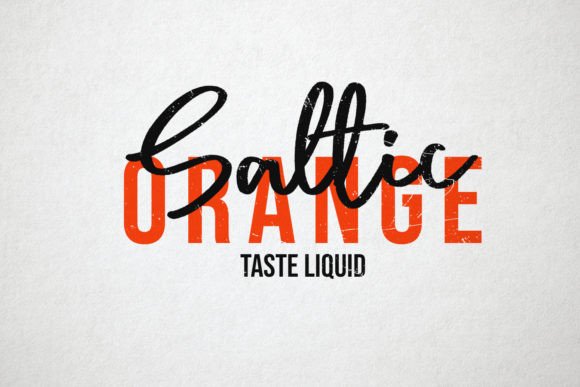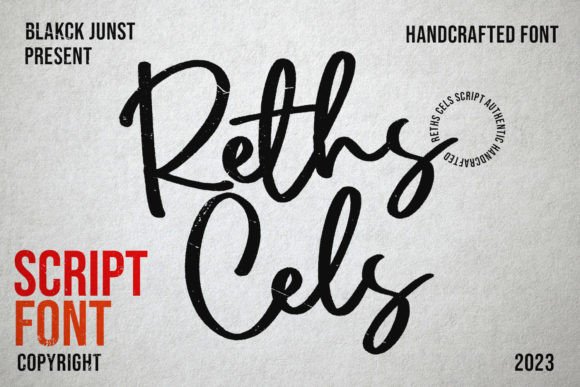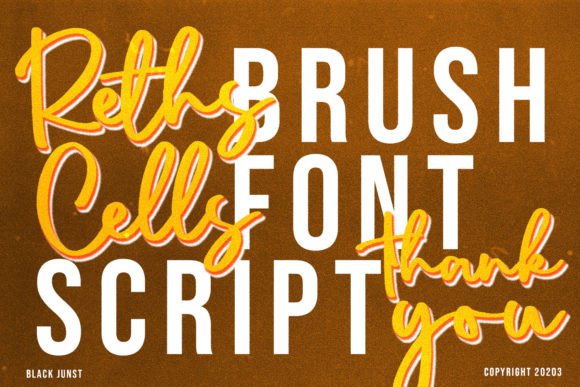
Introduction to Reths Cels Font
As designers, we’ve all been there – staring at a blank canvas, trying to bring a creative project to life. The moment of inspiration strikes, and suddenly, the perfect font appears in our minds’ eye. For many, it’s the Reths Cels Font that stands out as the perfect addition to any design. With its elegant script style, this high-quality font is a game-changer for any design project that needs a handwritten touch.
Whether you’re working on a wedding invitation, a thank you card, or a logo, Reths Cels Font is the perfect design resource to elevate your work. Its free download feature makes it accessible to designers of all levels, and its transparent background allows for seamless integration with any design. But what really sets Reths Cels Font apart is its ability to add a touch of sophistication and elegance to any creative project.
Key Features of Reths Cels Font
- High-quality design resource for creative projects
- Designed with a unique aesthetic, perfect for adding a touch of elegance to any design
- Includes a comprehensive set of characters, including uppercase and lowercase letters, numbers, and punctuation
Honest Review: Reths Cels Font
I recently stumbled upon the Reths Cels Font, and I must say it’s been a game-changer for my creative projects. This high-quality font is a fantastic design resource that I’ve been using extensively in my recent work. The clean and elegant design makes it perfect for any project, and the transparent background feature allows for seamless integration with any background image or color.
Here are some of the things that work well for me: ✨
- Wide range of characters and glyphs, making it suitable for various languages and alphabets
- High-resolution design, ensuring that the font looks crisp and clear even at larger sizes
However, I do have some limitations to note: ⚠️
- The font may not be ideal for bold or dramatic text, as it can appear slightly too light
- Some users may find the font’s simplicity a bit too minimalist for their taste
Overall, I’m really impressed with the Reths Cels Font. Its versatility, high-quality design, and free download option make it an excellent addition to any designer’s toolkit. Whether you’re working on a logo, brochure, or website, this font is definitely worth considering.
Reths Cels Font is a high-quality design resource ideal for creative projects that require a unique touch. With a transparent background, this font can be easily integrated into various design platforms.
Common Use Cases for Reths Cels Font
Reths Cels Font is ideal for various design projects, including:
- Branding and logo design
- Print materials, such as business cards and brochures
- Digital designs, such as social media graphics and website headers
Alternatives to Reths Cels Font
Is the Reths Cels Font suitable for high-resolution printing?
Yes, the Reths Cels Font is designed to be high-quality and suitable for high-resolution printing. It is optimized for use in various design projects, including business cards, brochures, and other marketing materials. However, it’s always a good idea to test the font in your specific design software and printing environment to ensure the best results.